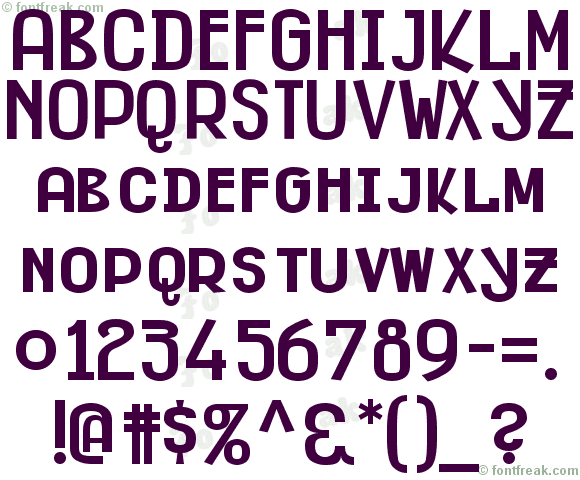
Fitzgerald
About Fitzgerald
The Fitzgerald font by Objects Dart is a striking display typeface that embodies a modern yet classic aesthetic. This font falls into the category of sans-serif, characterized by its clean lines and absence of decorative flourishes. With a balanced stroke weight and a moderate contrast, Fitzgerald offers a sense of stability and sophistication that makes it versatile for various design projects. The spacing is well-proportioned, ensuring readability while maintaining an artistic flair, making it an excellent choice for both digital and print applications.
Ideal for a variety of creative uses, the Fitzgerald font shines in contexts such as movie posters, where its bold presence can capture attention and communicate themes effectively. It works beautifully for restaurant menus, adding a contemporary touch to the dining experience. Graphic designers may also find it suitable for branding projects, as its unique style can help create a memorable identity. Additionally, this font can enhance wedding invitations, providing a sophisticated yet approachable feel that resonates with elegance.
What sets the Fitzgerald font apart is its ability to blend modern minimalism with a hint of charm, making it a versatile choice for various design needs. Its straightforward yet appealing design ensures that it stands out while remaining functional, making the Fitzgerald font free download an attractive option for anyone looking to enhance their typographic toolkit.